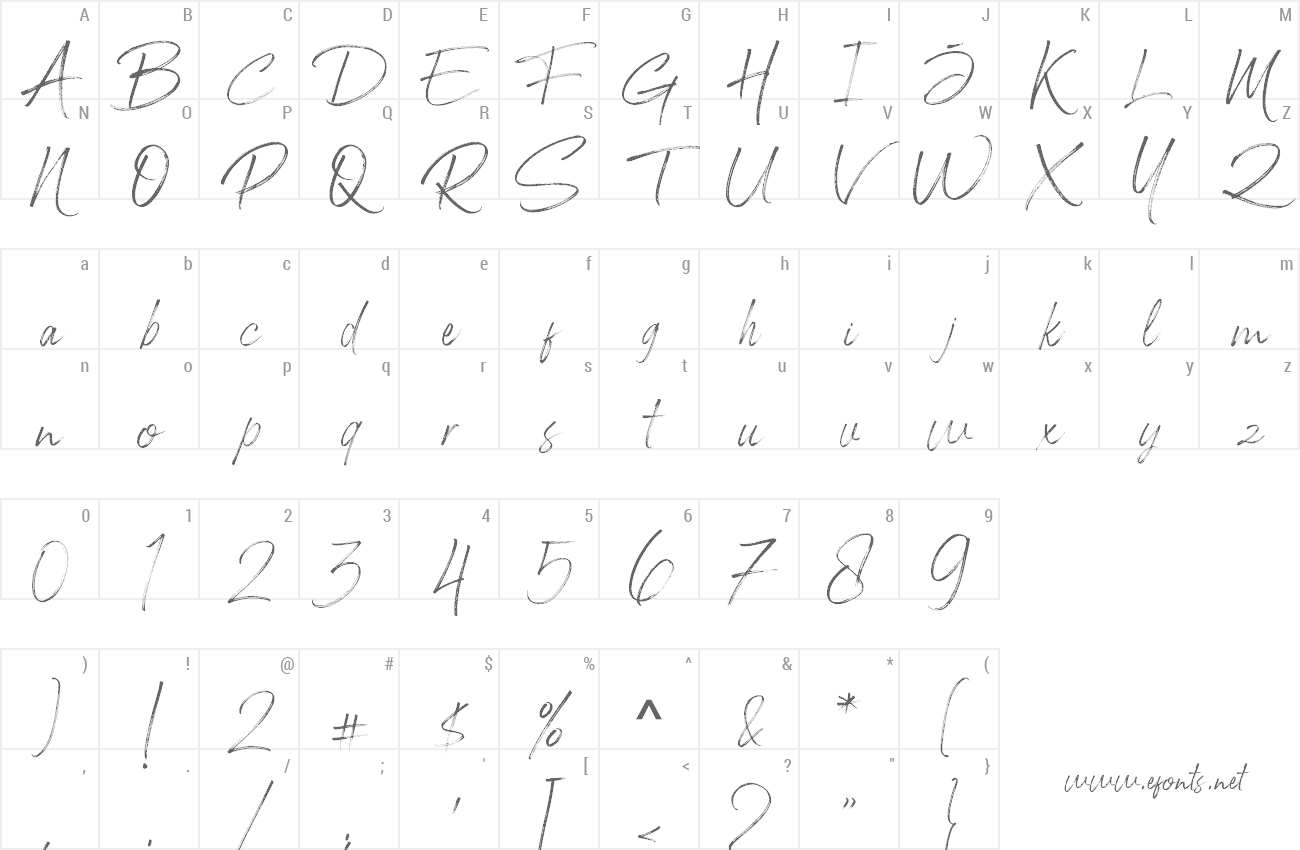
| Font name: | Optimust |
| Author: | Ibnu Utomo |
| Note by Ibnu Utomo | |
ENGLISH DETAILS Optimust! A handwrittent script brush font with 2 styles, regular and slant. Optimust font is suitable for branding, logotype, apparel, T-shirt, Hoodie, product packaging, quotes, flyer, poster, advertising, etc. Whats Include? 1. Uppercase and lowercase characters 2. Multilingual support. 3. Numerals, punctuations, end titling, and ligatures 4. Accessible in the Adobe Illustrator Glyphs panel, or under Stylistic Alternates in the Adobe Photoshop OpenType menu, Adobe InDesign, Corel Draw, even work on Microsoft Word. 5. TTF, OTF, and WOFF files FULL VERSION AND COMMERCIAL LICENSE: https://www.creativefabrica.com/designer/omotu/ref/144864/ FOR EXTENDED LICENSE PLEASE CONTACT: ibnu.blawong2@gmail.com Please message me if you're unsure of any language support. Thanks for looking, and I hope you enjoy it! Please don't hesitate to drop me a message if you have any issues or queries. -------------------------------------------- BAHASA HARAP DIBACA: Perlu diketahui bahwa font ini hanyak untuk penggunaan PERSONAL SAJA. Tidak diperbolehkan untuk penggunaan KOMERSIAL dalam bentuk apapun kecuali anda membeli LISENSI-nya terlebih dahulu. Lisensi bisa anda beli di : https://www.creativefabrica.com/designer/omotu/ref/144864/ More... |